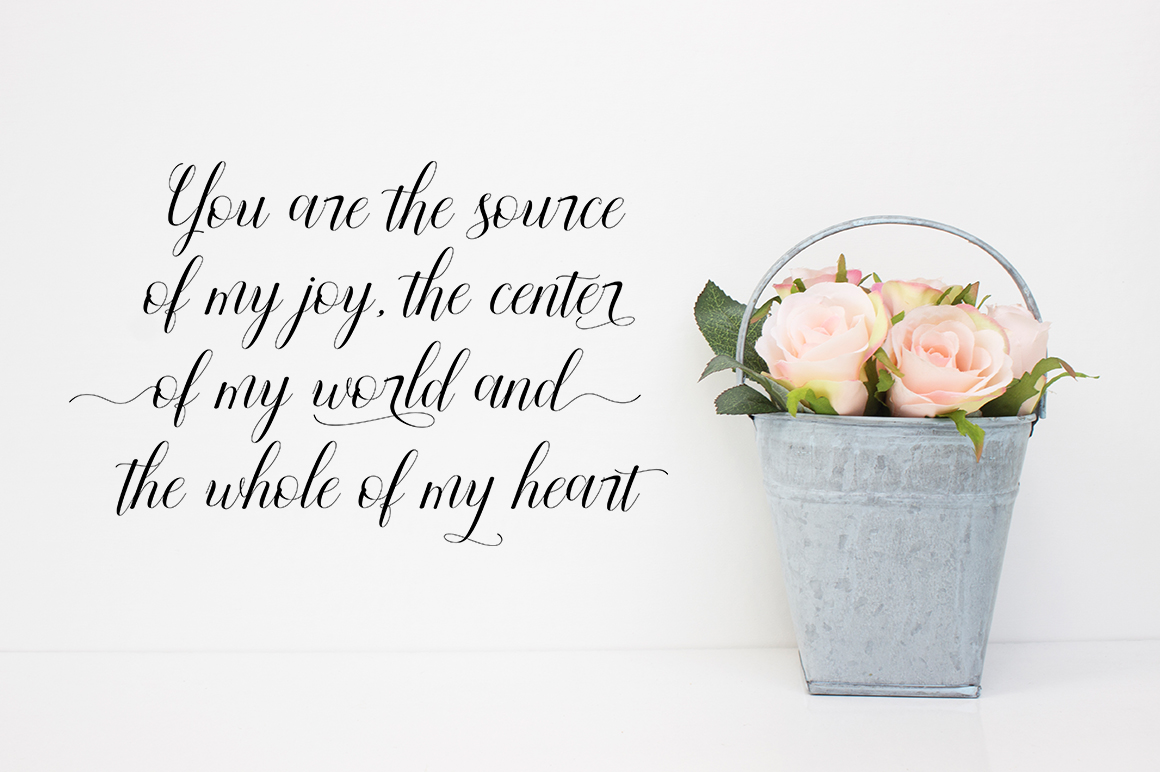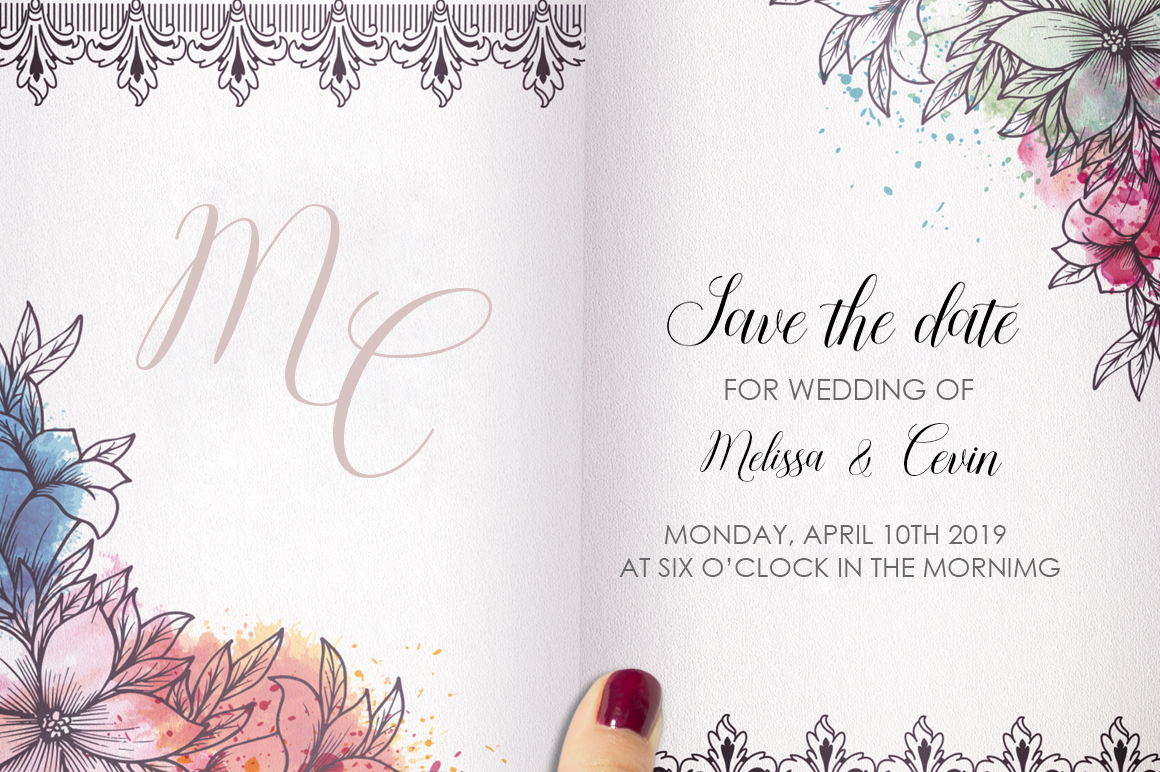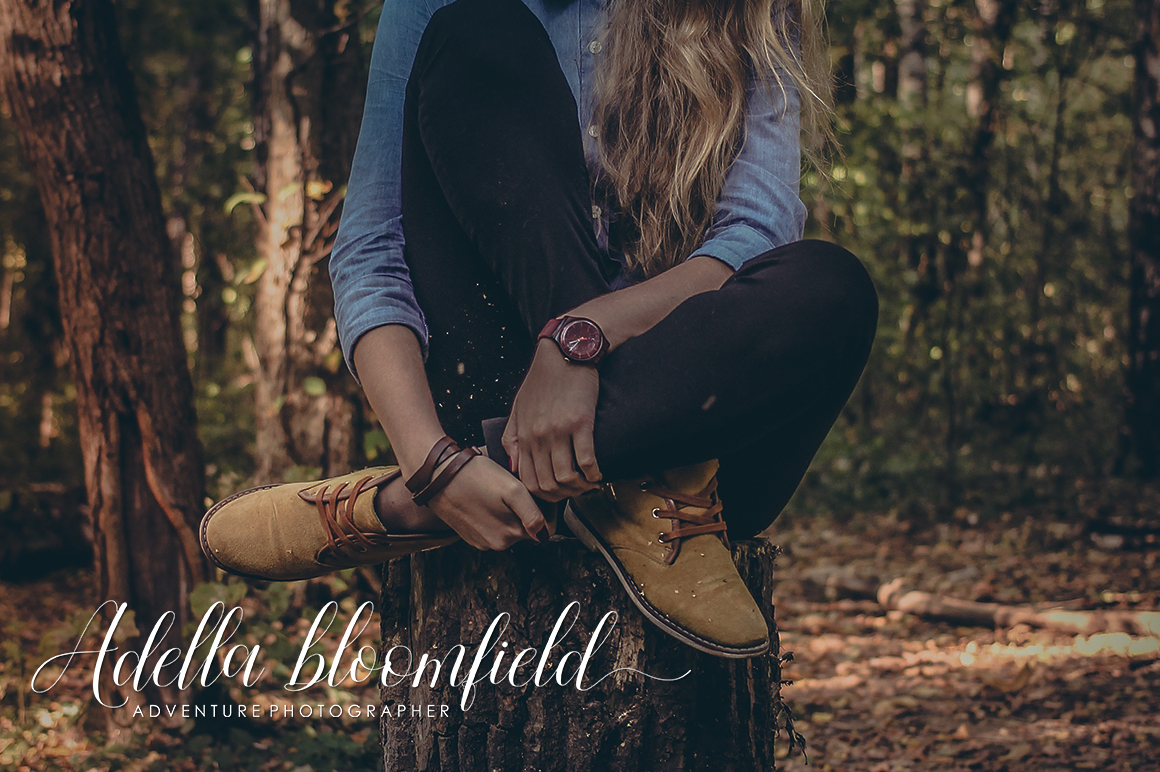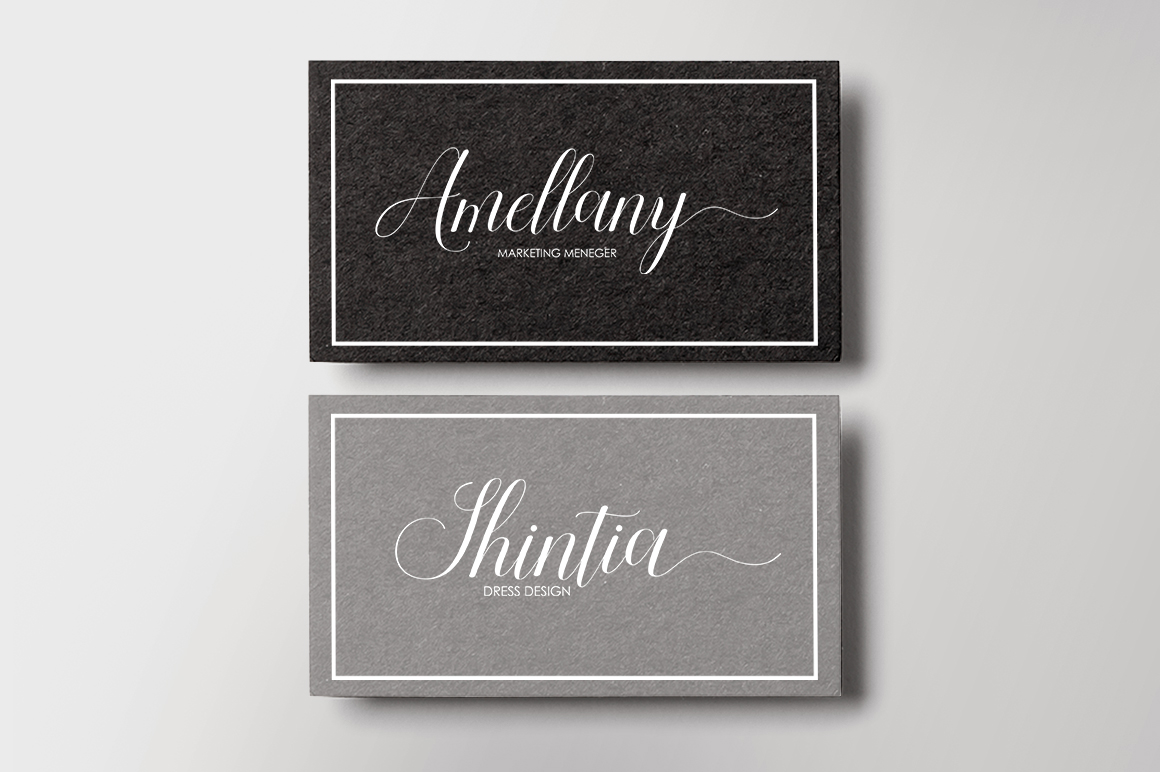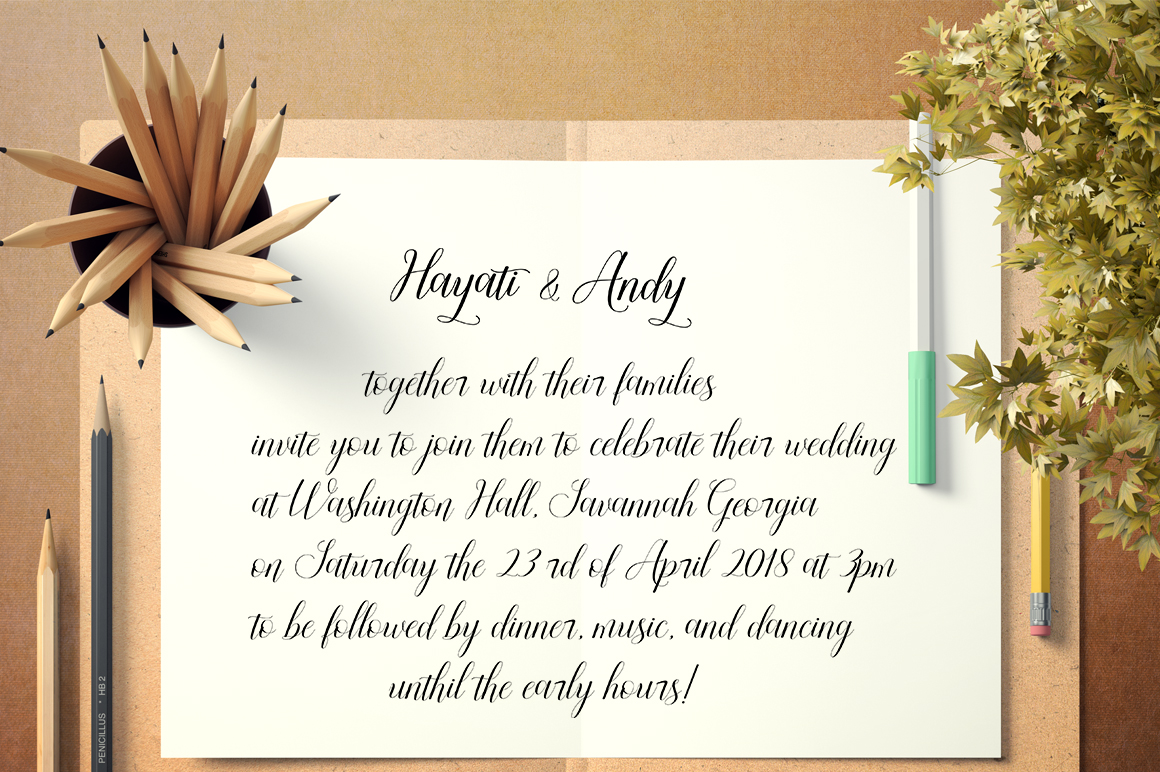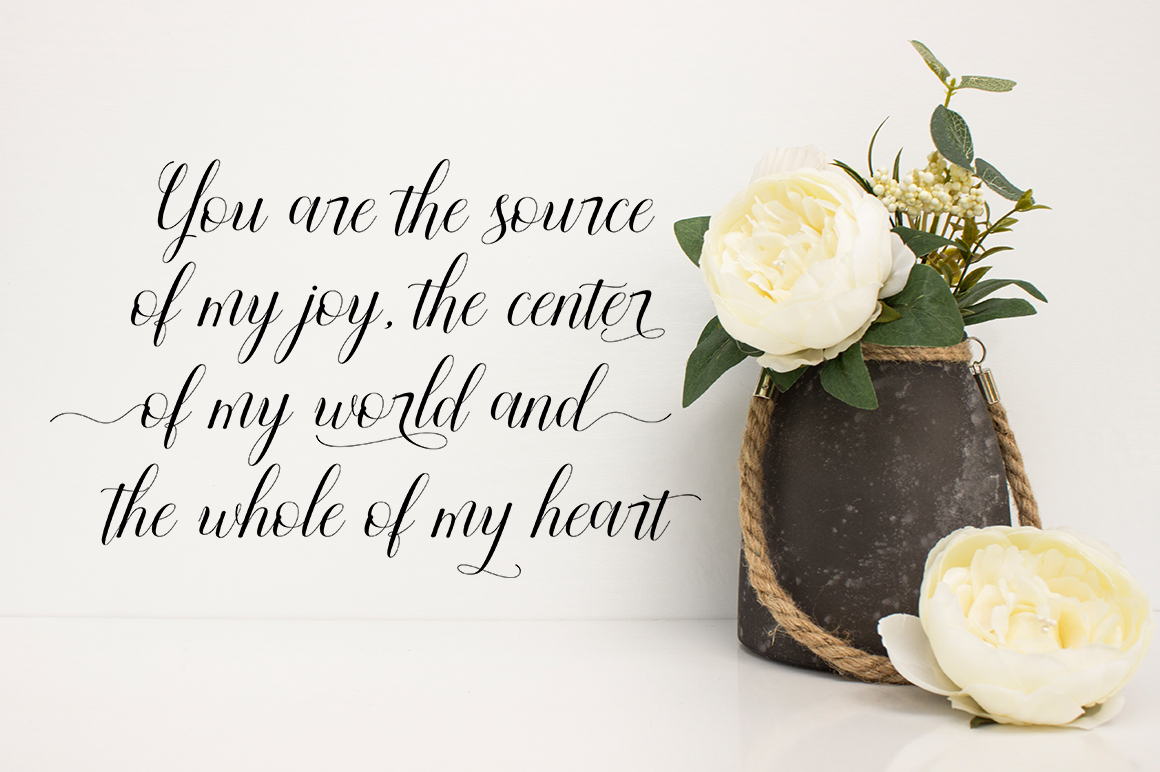
Attention Font
About Attention Font
Attention is a modern calligraphy script that comes in 2 weights: Regular & Bold.
Its delicate swashes will add an elegant touch to your designs.